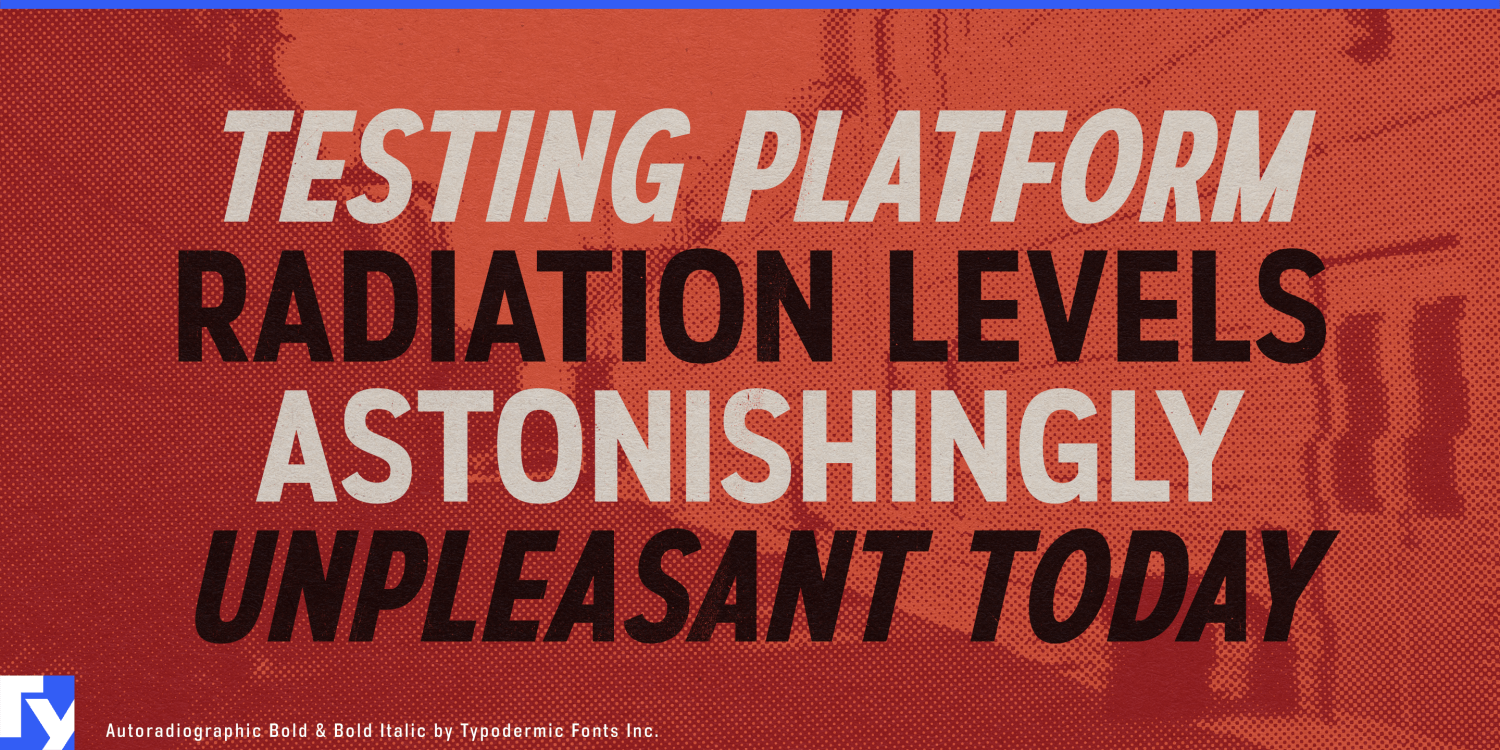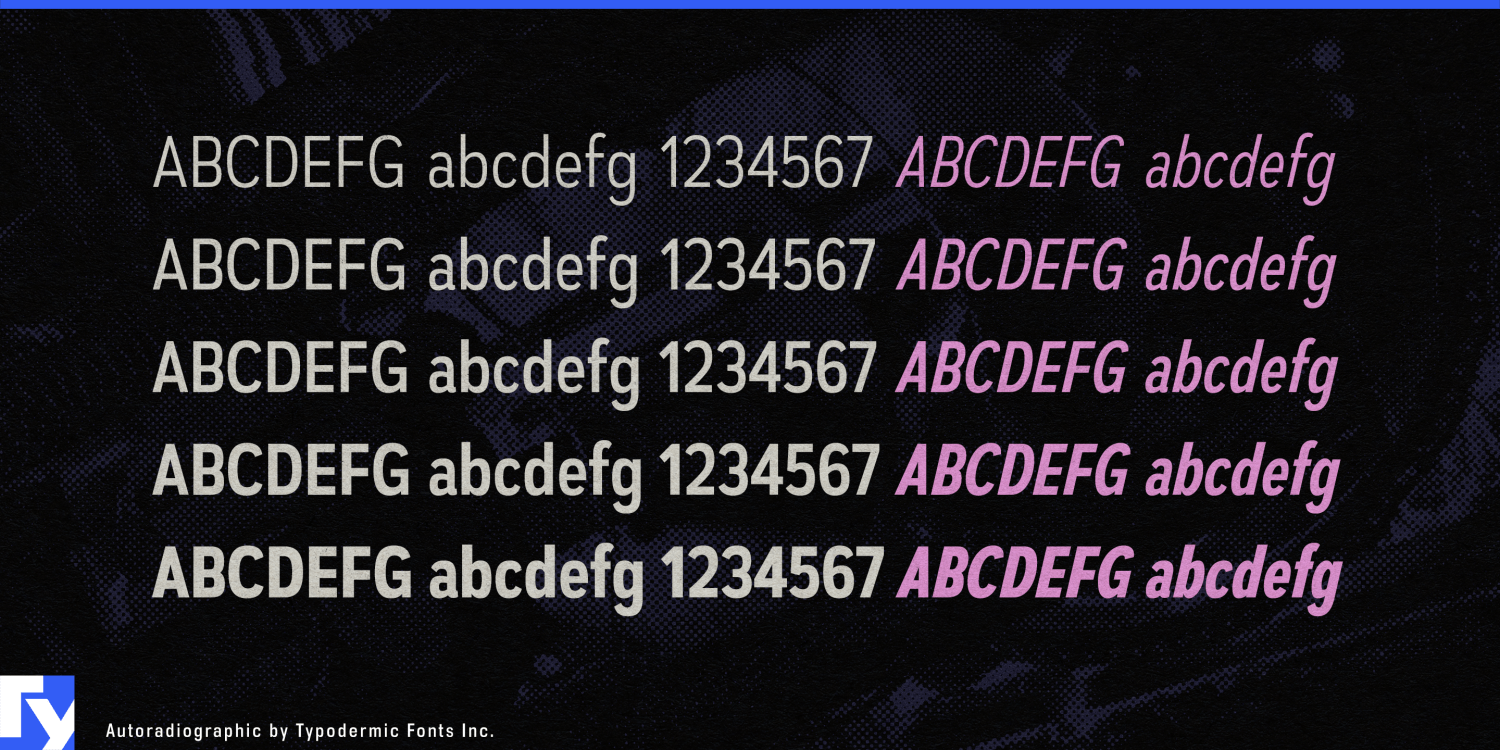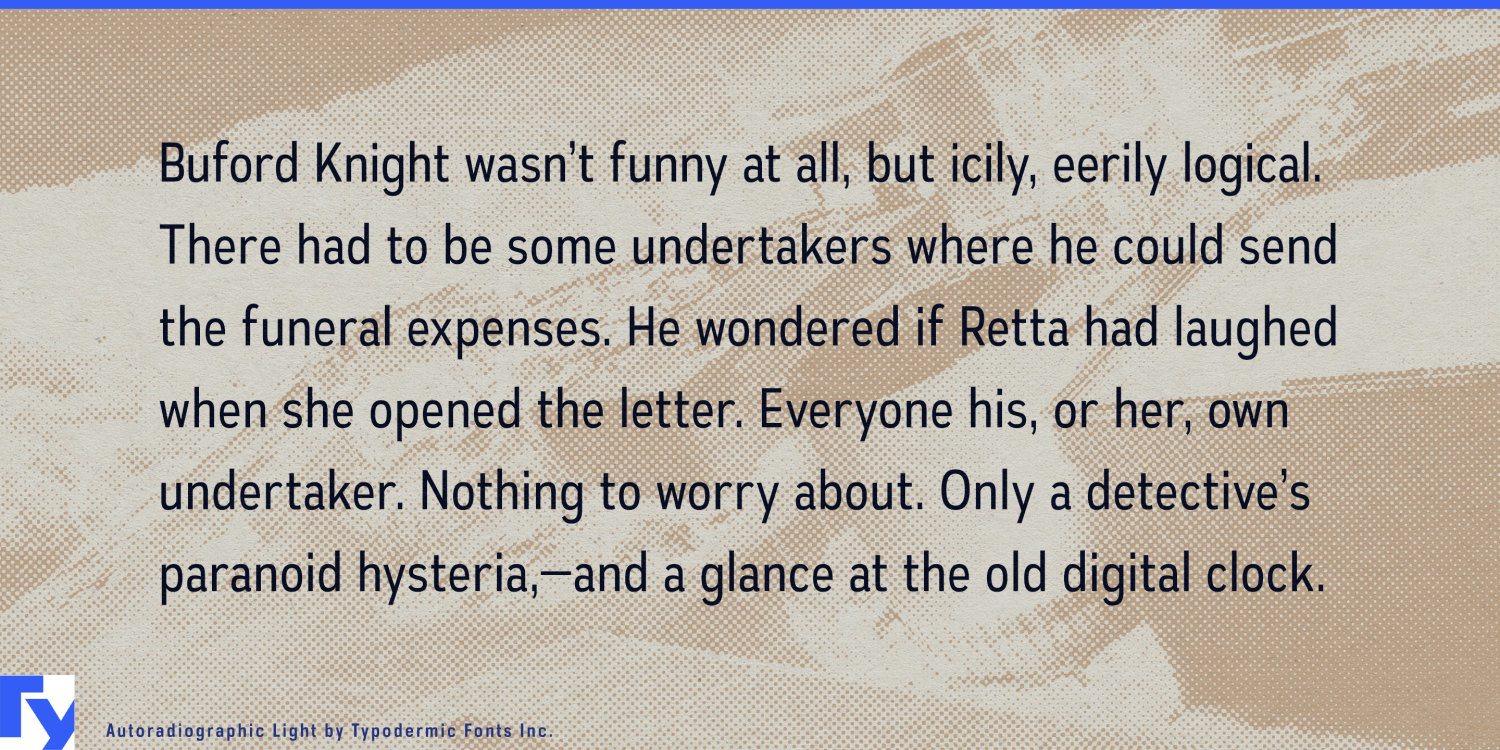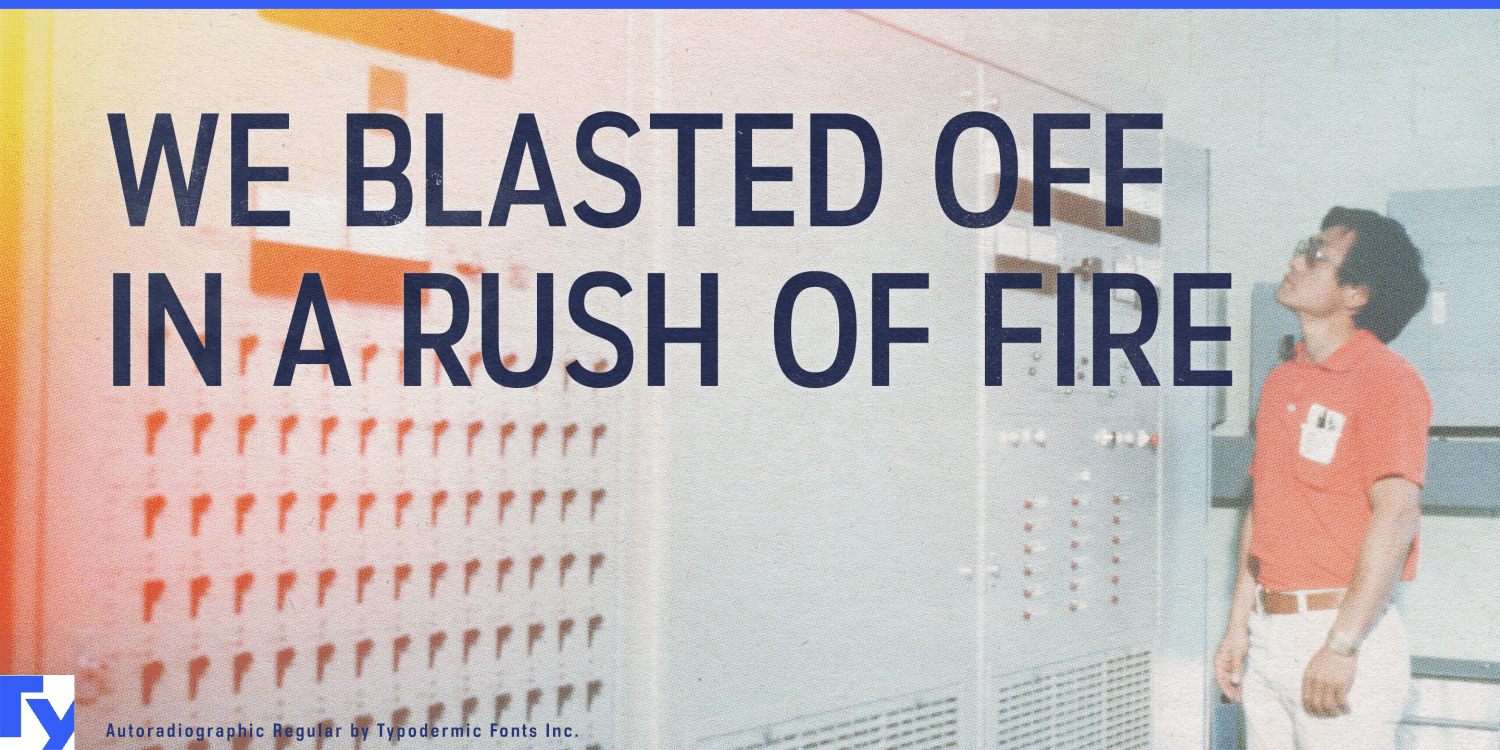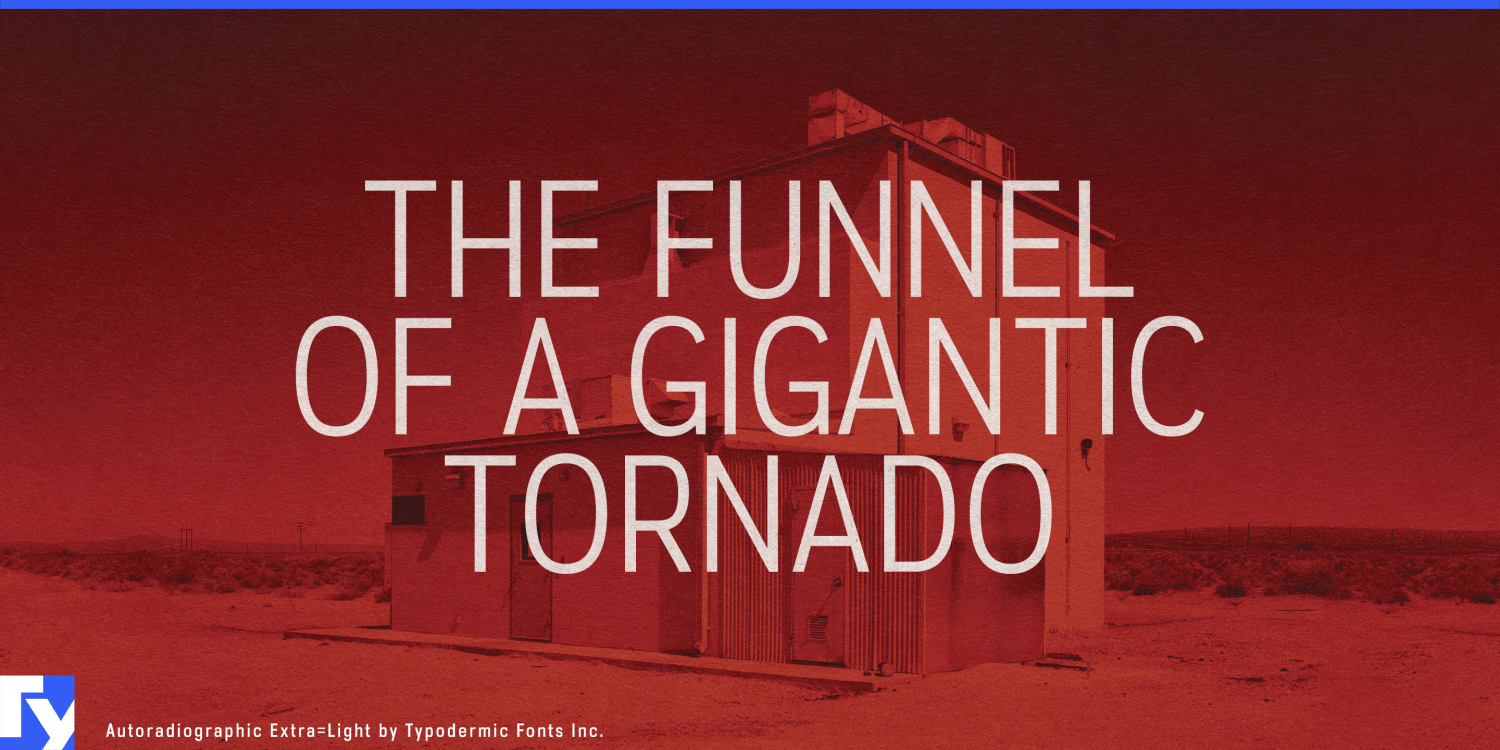
Attention, design enthusiasts! Hold onto your hats because Autoradiographic is here to electrify your typography! Straight out of the atomic age, this typeface packs more punch than a double feature at the drive-in! Inspired by those snazzy post-war warning…